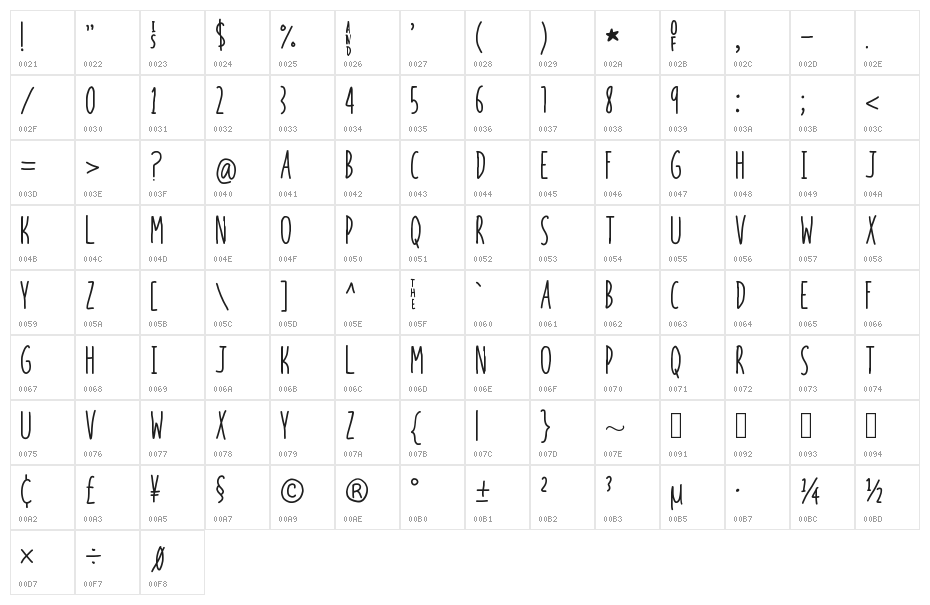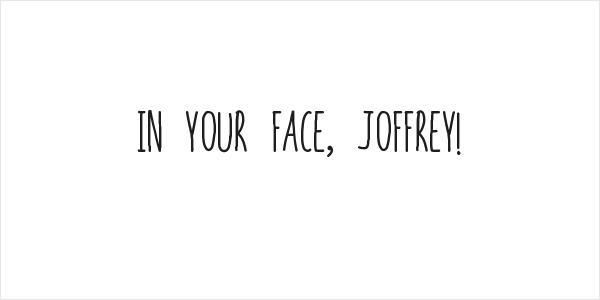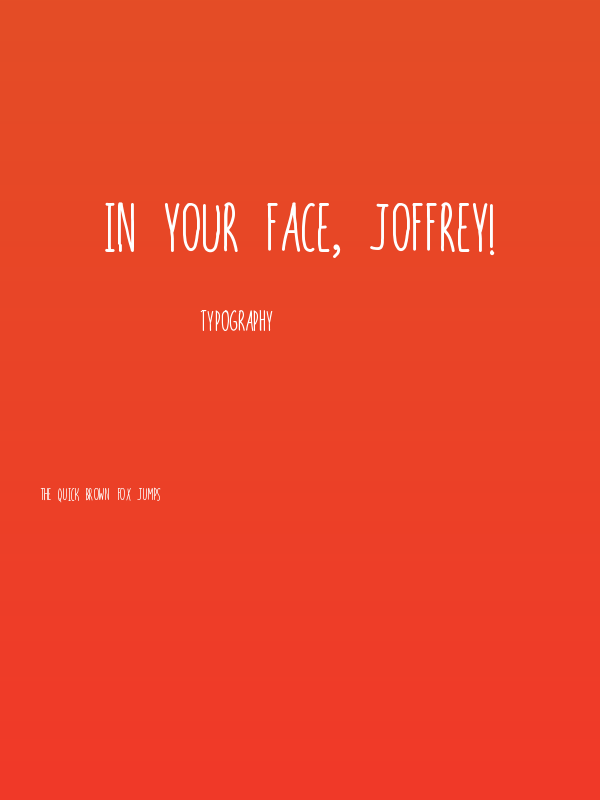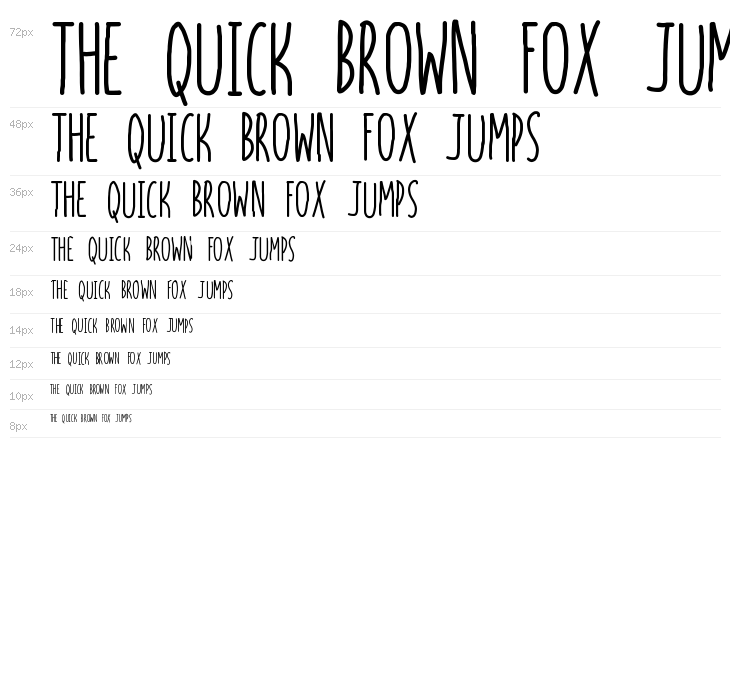
In your face, Joffrey! Font
In your face, Joffrey! Description
This font features a playful and quirky handwritten style, characterized by its tall, narrow letters and slightly irregular strokes. The uppercase and lowercase letters maintain a consistent height, giving it a uniform appearance despite its casual nature. The numbers and special characters follow the same playful aesthetic, making it suitable for informal and creative projects. The strokes are consistent in width, providing a clean and legible look. The font's unique personality makes it ideal for projects that require a touch of whimsy and individuality.
Overall StylePlayful
Use CaseHeadlines, Logos, Informal Text
Proposed ProjectsIdeal for children's books, greeting cards, playful branding, and creative posters.